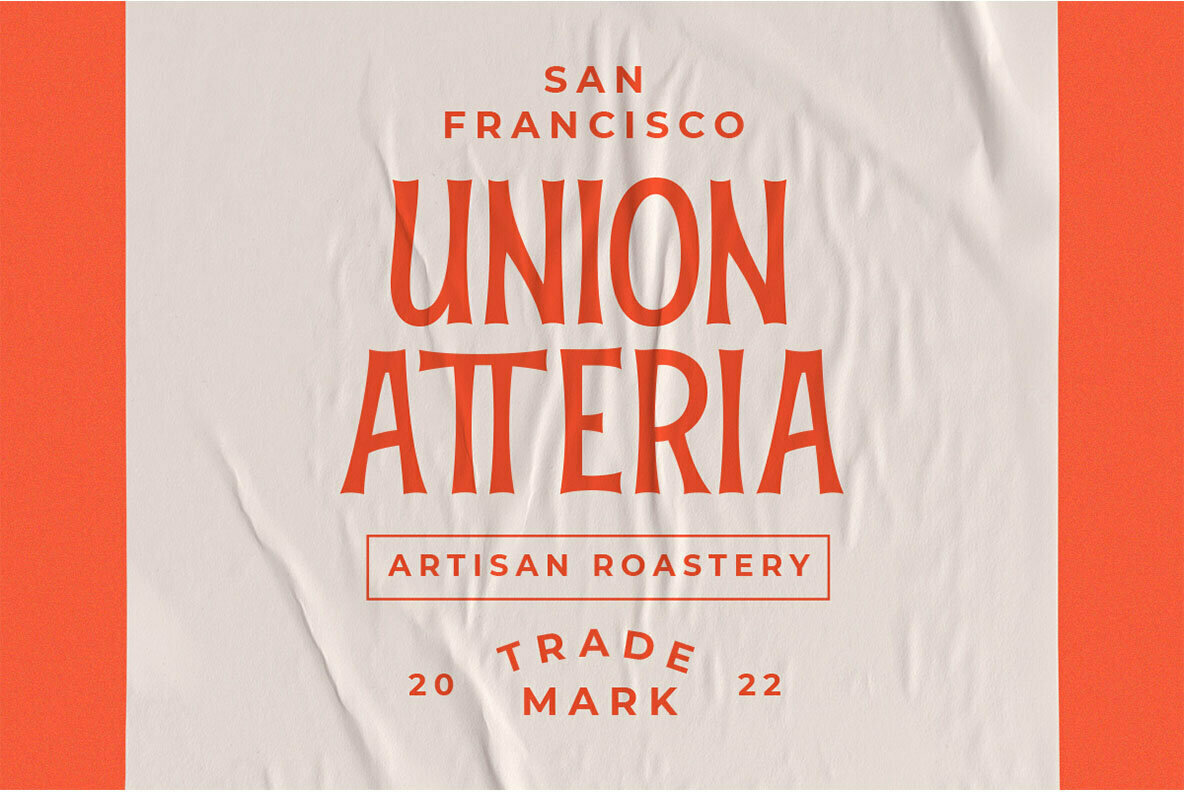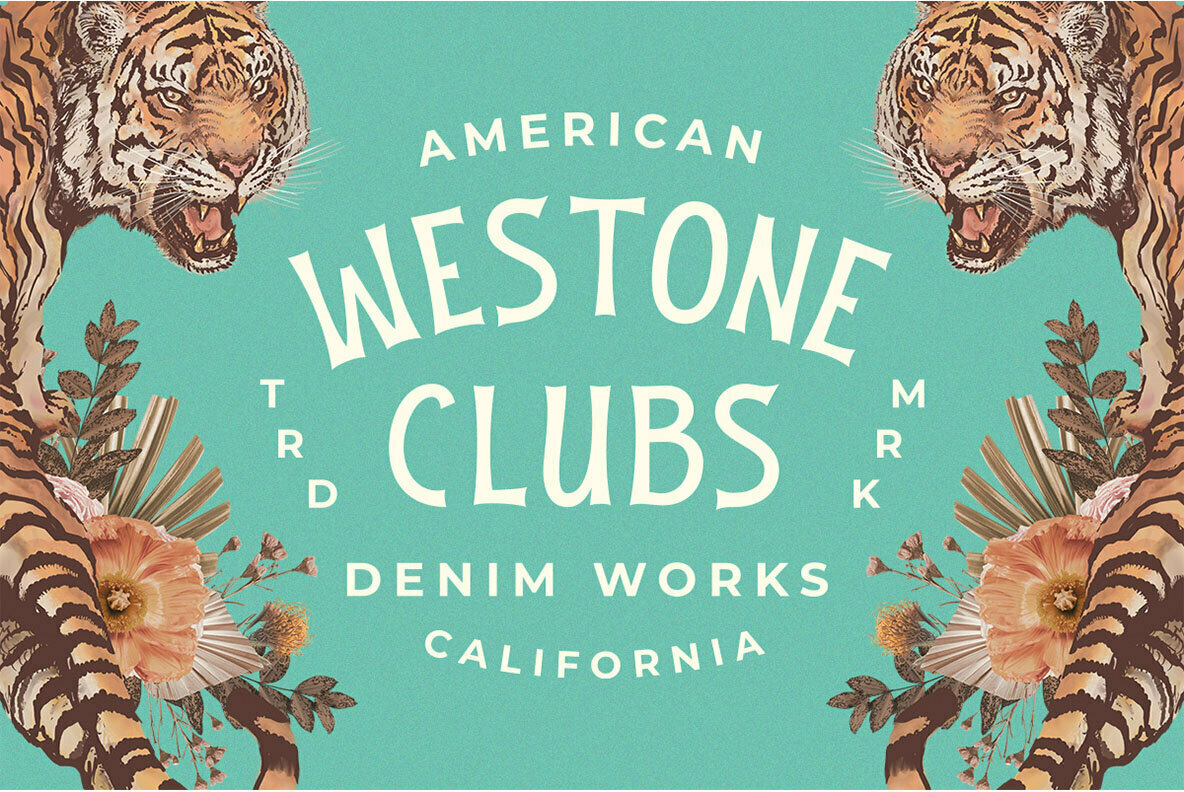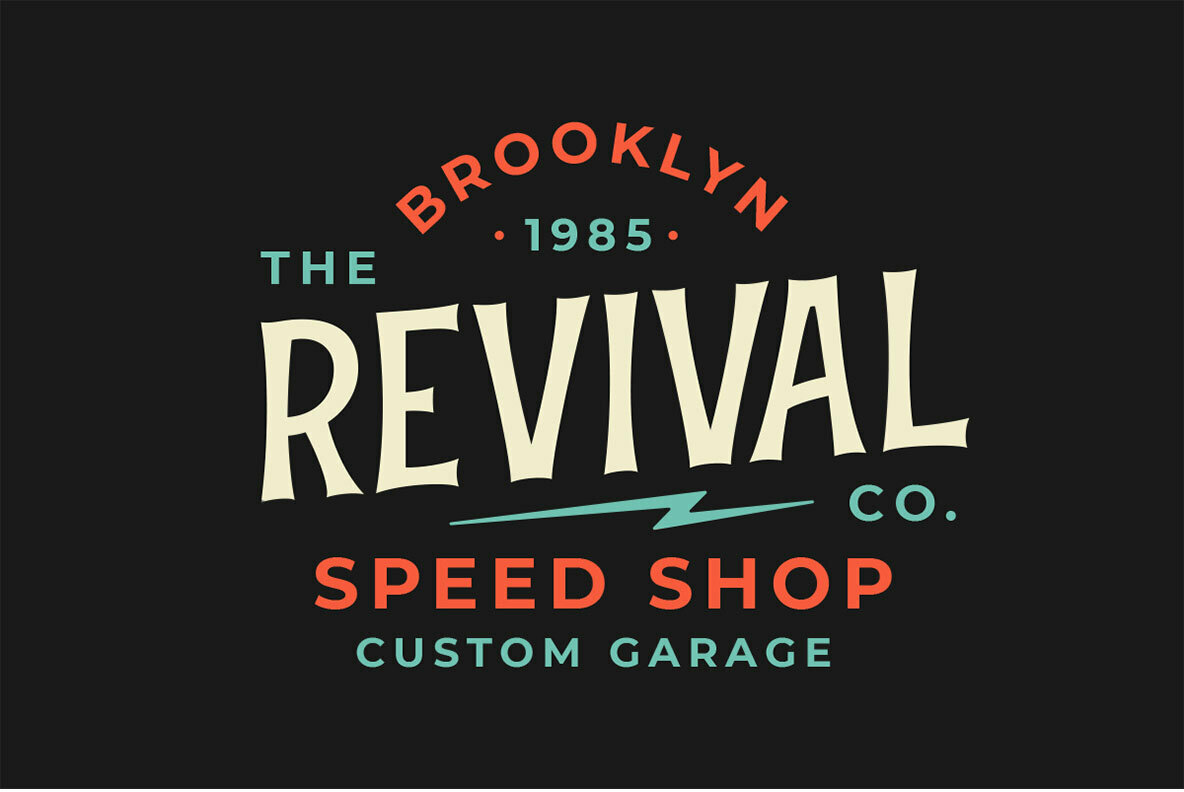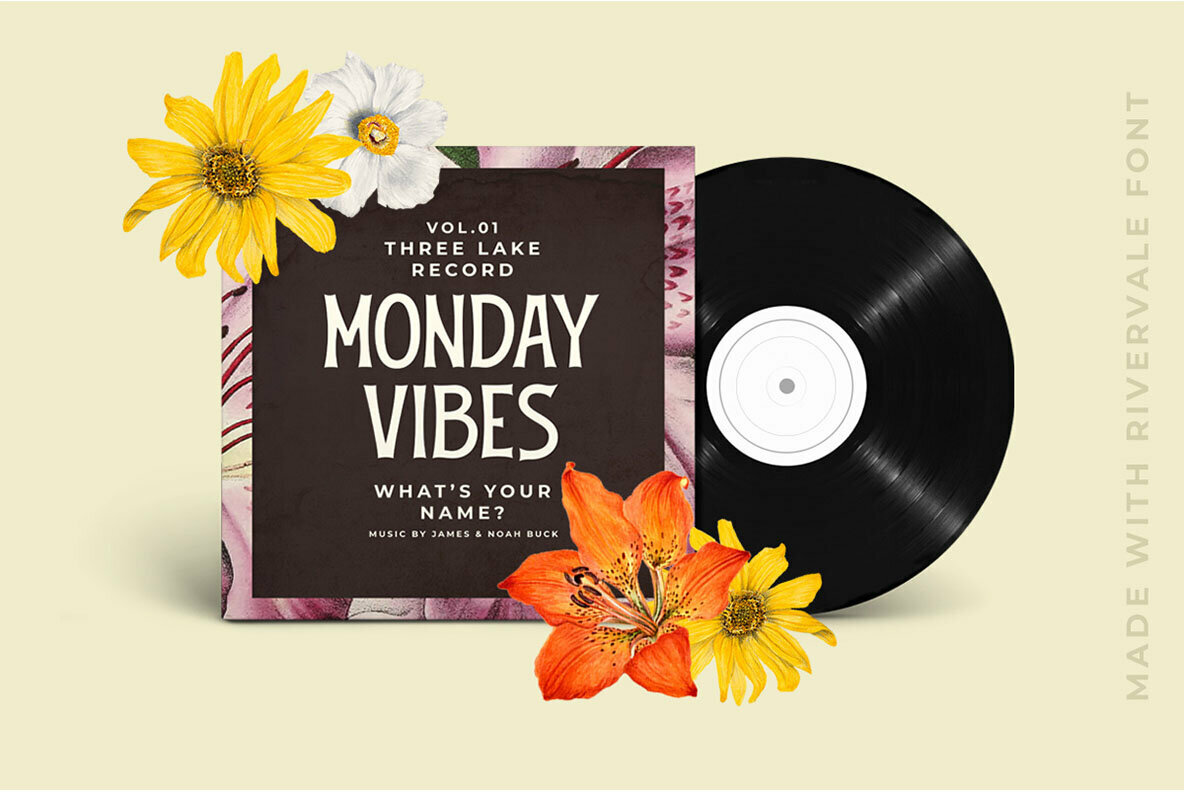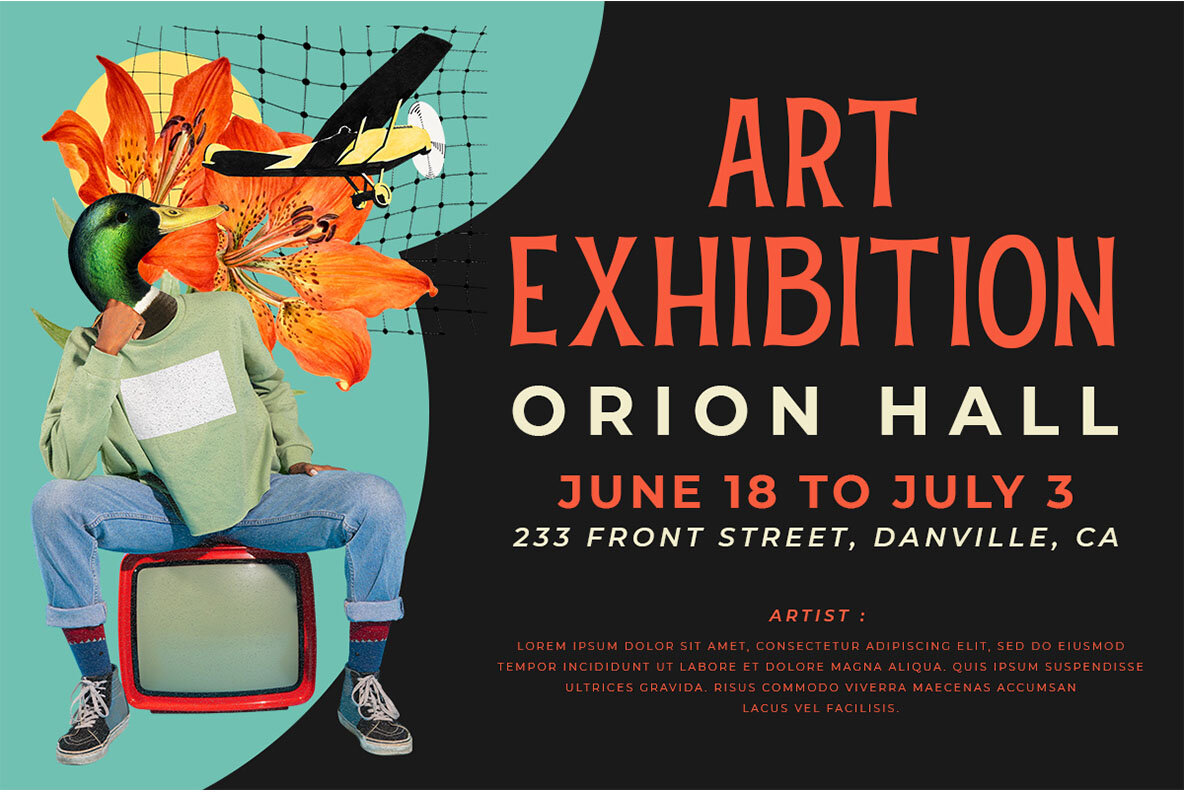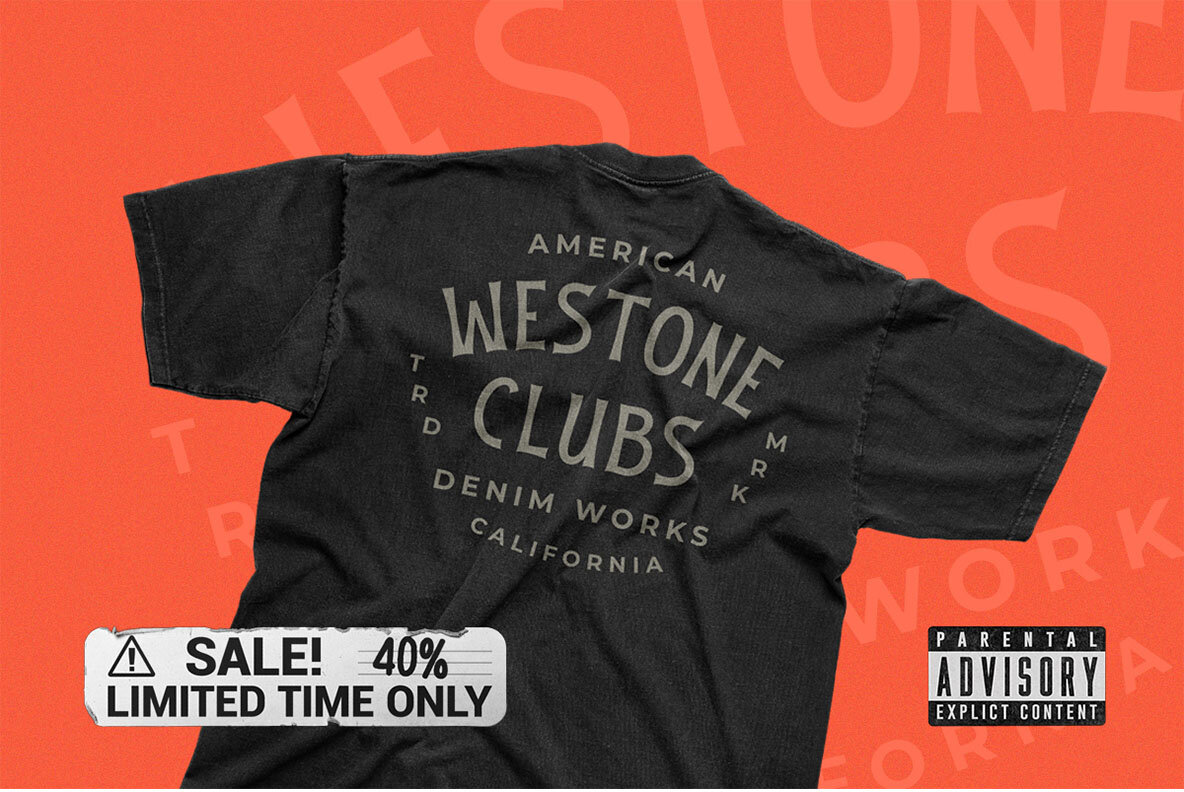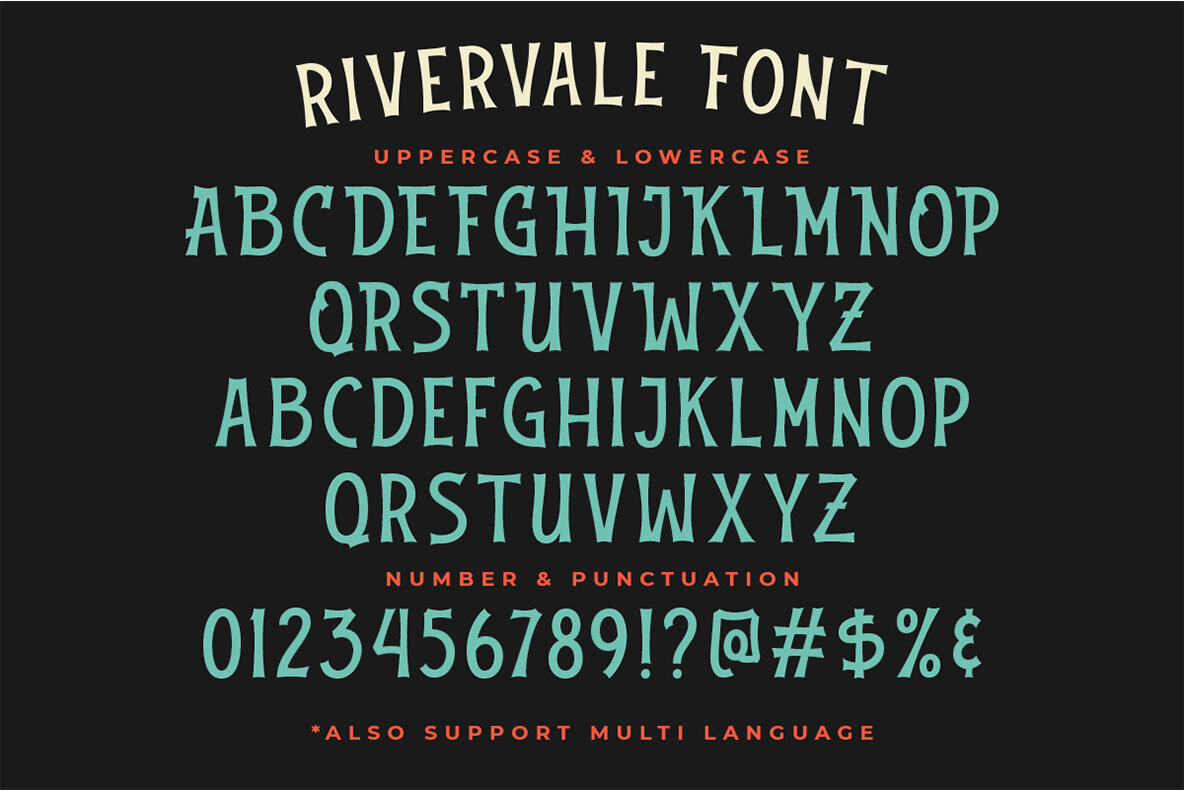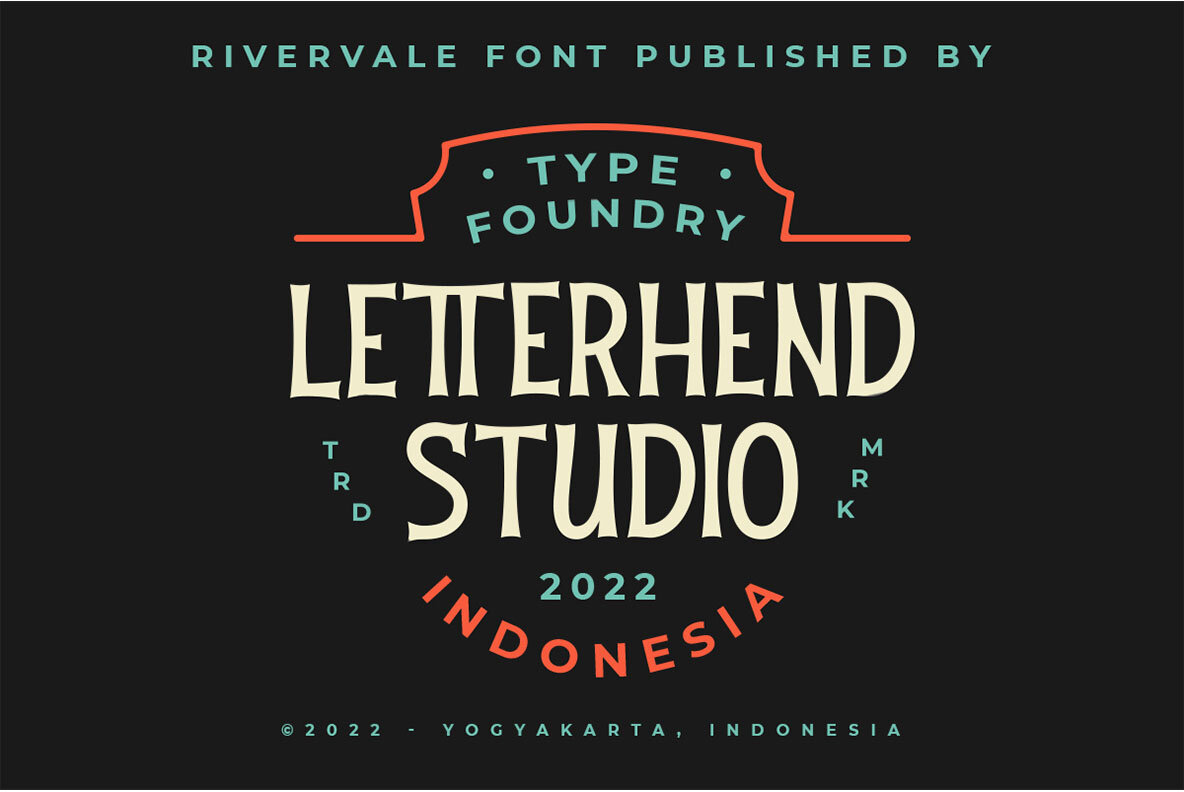
Rivervale Font
Rivervale Regular
Rivervale is a typeface that takes its inspiration from vintage lettering and art. It's perfect for use in headlines, logotypes or any other project with an old-fashioned feel as well as something more modern like packaging design! The uppercase letters are completely appropriate when it comes to making sure your message stands out while lowercase characters can be used if you want some added flair through different styles such ligatures etc.